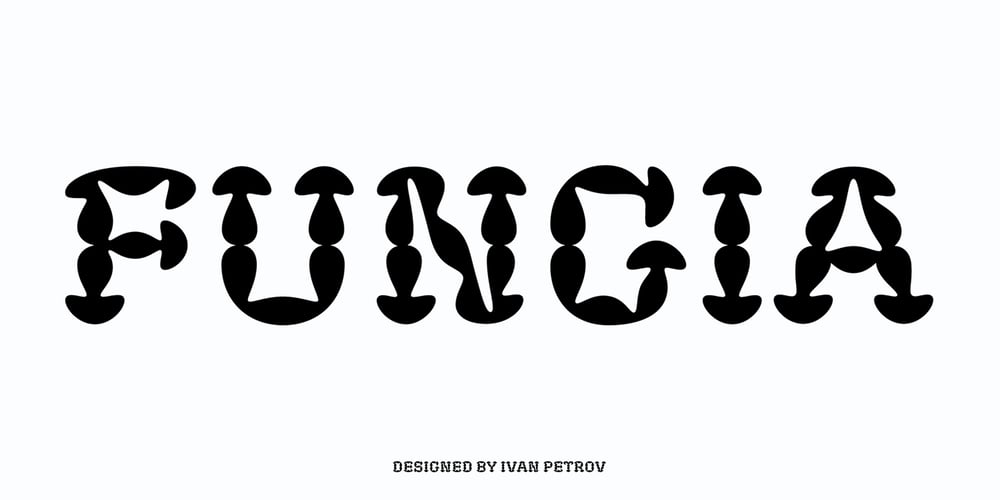
Fungia Font Family was designed by Ivan Petrov and published by Ivan Petrov. Fungia contains 1 styles and family package options. Fungia is the result of an experiment to remelt loose natural forms to a coherent structure of a typeface. The idea appeared as a kind of joke: what letters look like if based on the shape of mushrooms. In a sense the structure of�mushroom has some affinity to the structure of�a letter: a cap and a stalk remind�a serif and a stem respectively. So it was pretty easy to design such straight letters like I, E, L, F. The captivating challenge was to apply the idea on round letters (O, C, D, G), letters with diagonal (N, M, Z) and signs without serifs (digits, @, &). The result exceeded expectations. The typeface turned sophisticated and vibrant but absolutely consistent. It became capital-only font in one weight. Because of its opulent forms Fungia performs best in large size and short inscriptions. However it provides readability in small size as well. Fungia is more likely thing-in-itself. Initially it wasn’t intended to solve specific design challenges. But the alleged scope could include book covers, posters and billboards, street signs, magazin spreads and all situations that demand�expressive typography. Fungia supports extended latin and russian cyrillic script systems.